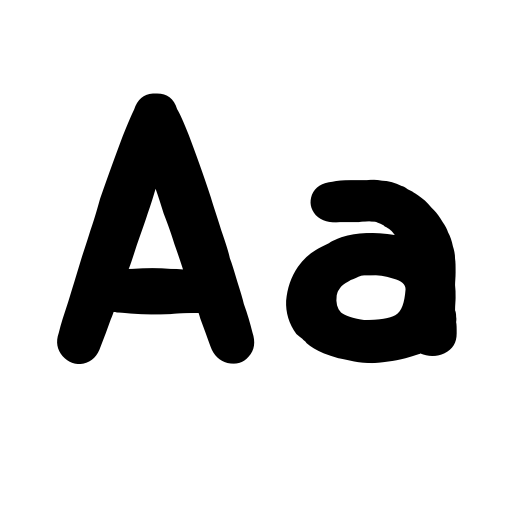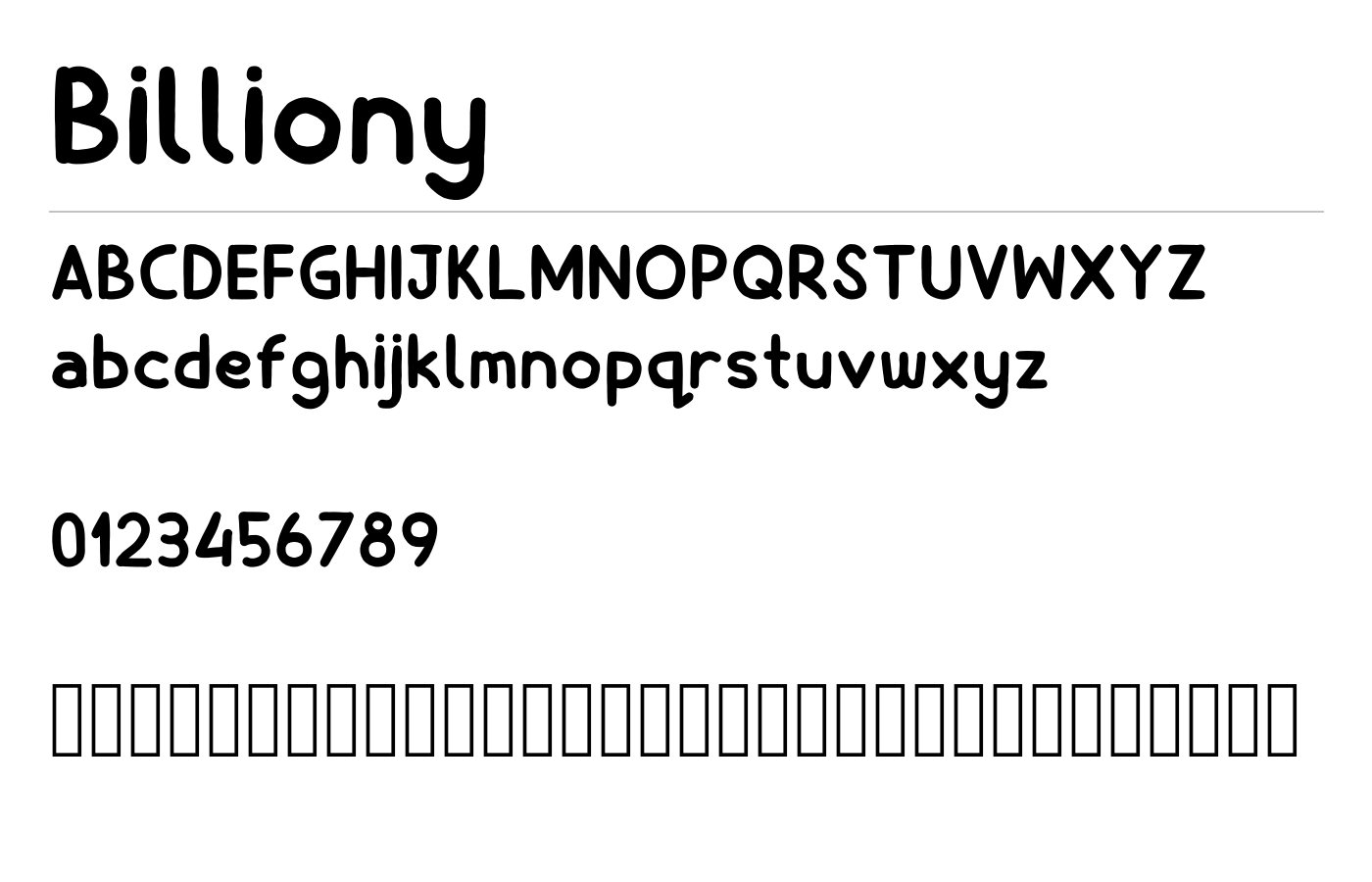
Billiony is a playful and friendly sans serif font with rounded, irregular strokes that give it a hand-drawn, informal feel. Its moderate weight and open letterforms make it approachable and easy to read, perfect for creative projects, casual branding, or children’s content where a warm, inviting tone is desired. This font works well in headlines, logos, and packaging that benefit from a fun and personal touch.
Billiony Font
About Billiony Font
| Designer | Muhammad Husni Haikal |